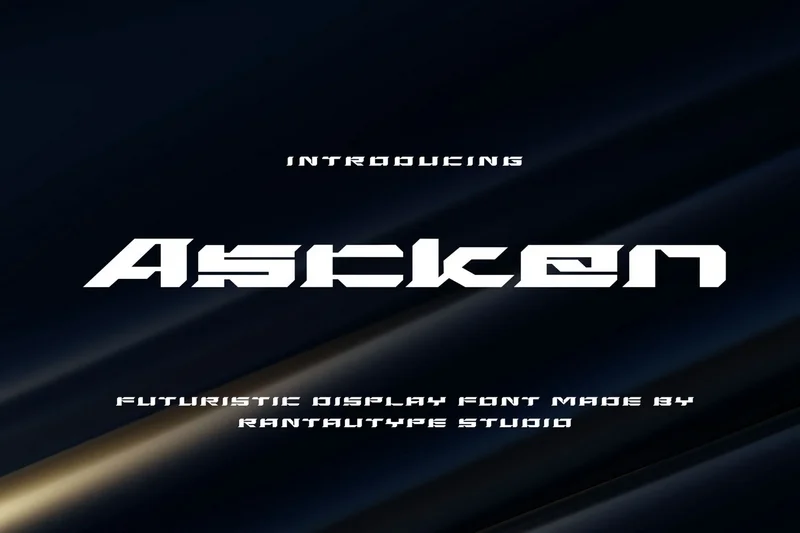
Ascken Futuristic Display Font
Ascken is A futuristic display font embodies innovation, sleek design and the forward-thinking spirit of modern creativity. Ascken come with bold lines, geometric precision and unconventional forms, this typeface is designed to capture attention in digital and print media alike. Ascken bring sharp edges, streamlined curves and often experimental letter shapes evoke the aesthetics of advanced technology, space exploration and cyber inspired visuals.
Ascken is a perfectly choice for any creative endeavor, chic, lifestyle design such as logotype, advertisements, watermark on photography, stationery, branding project, display and magazine, invitation, corporate brand, product design, label, business project and many other project with futuristic touch.